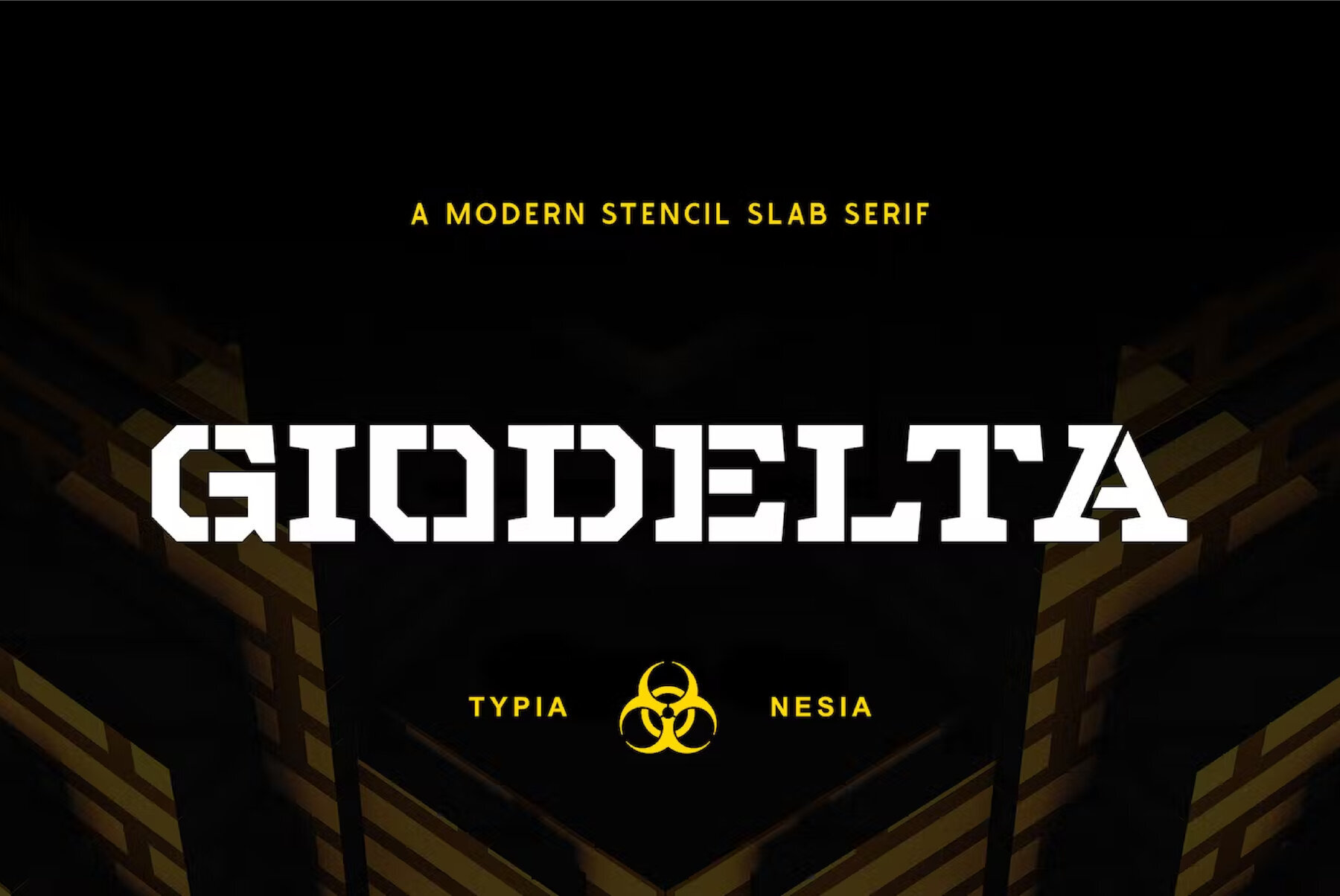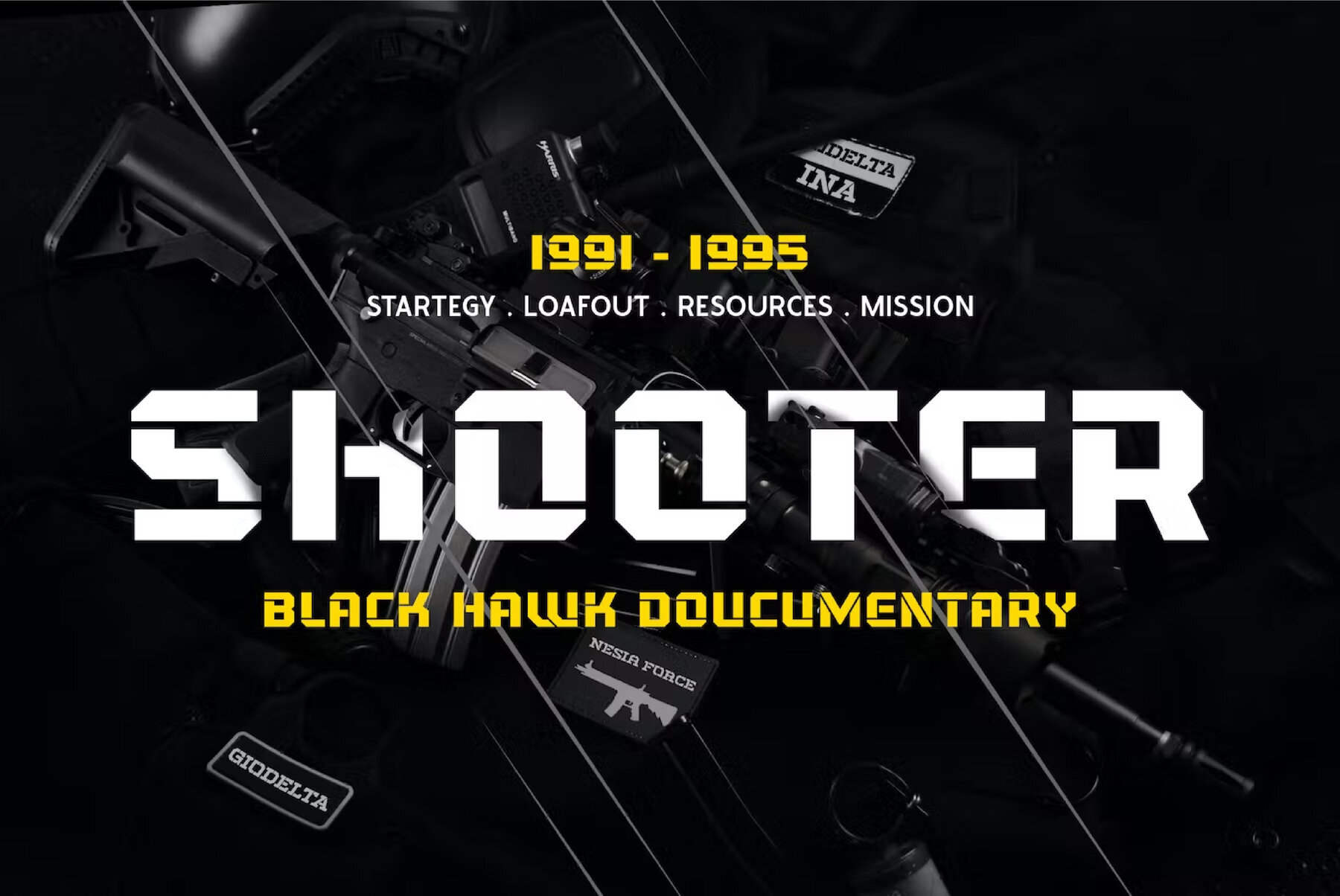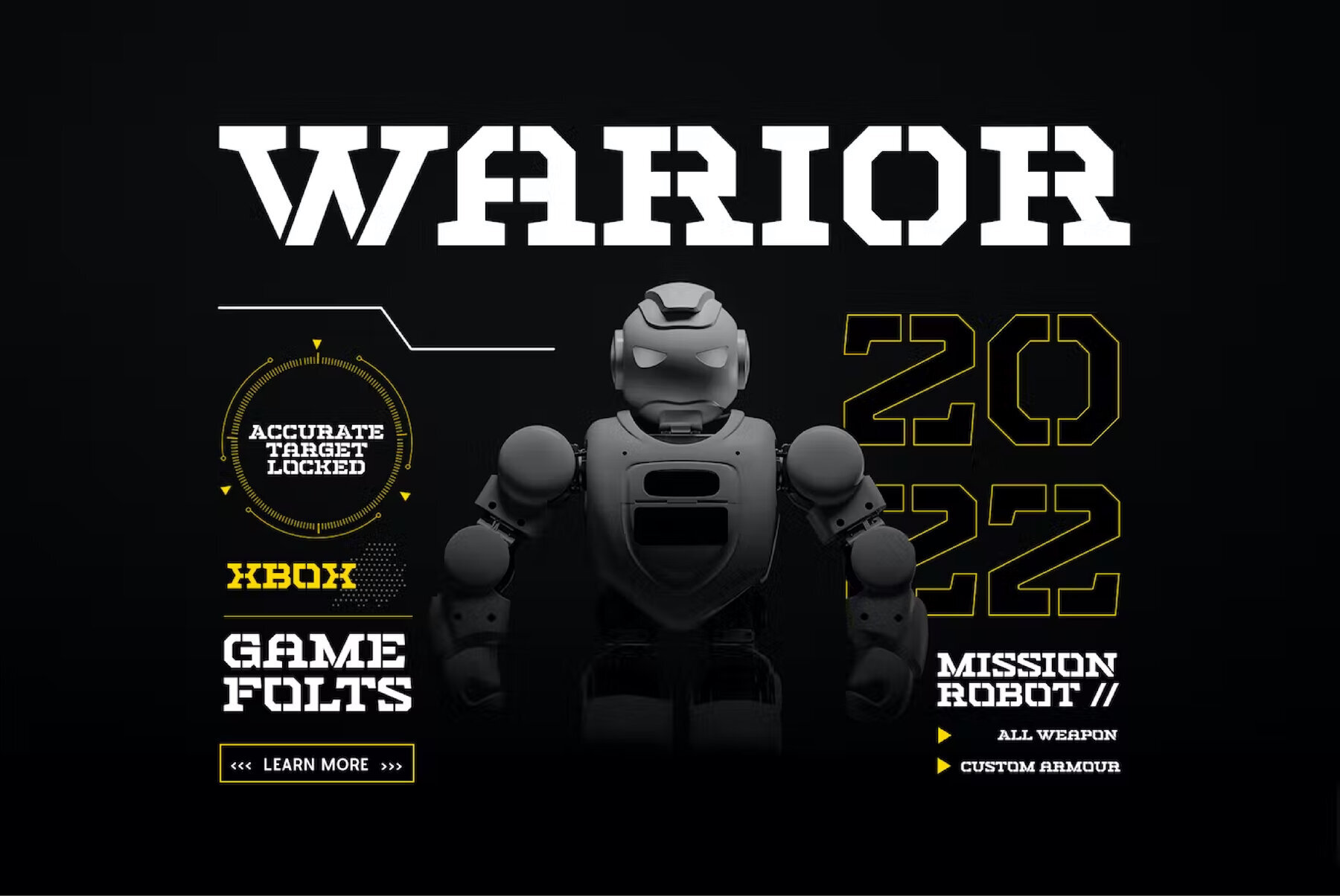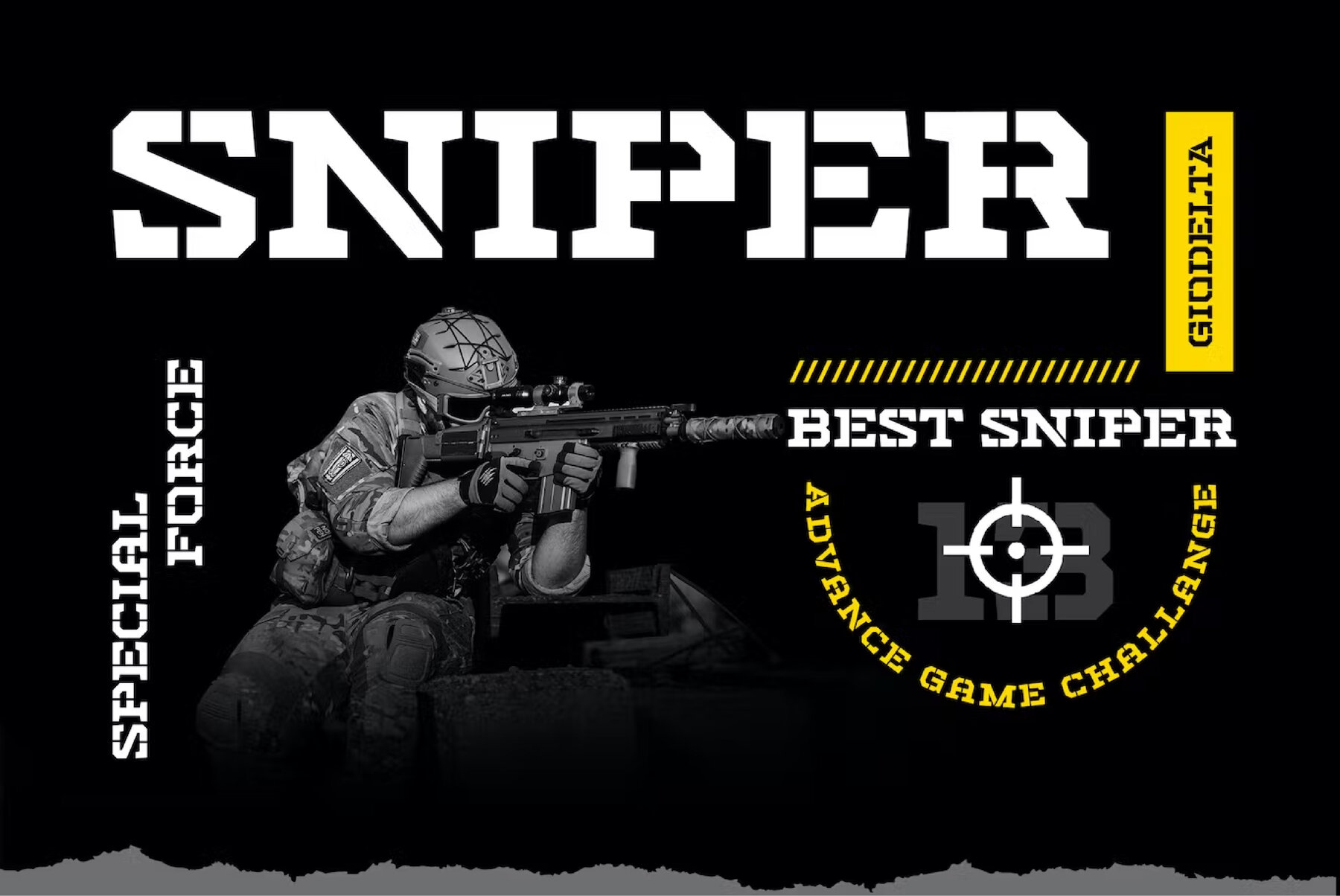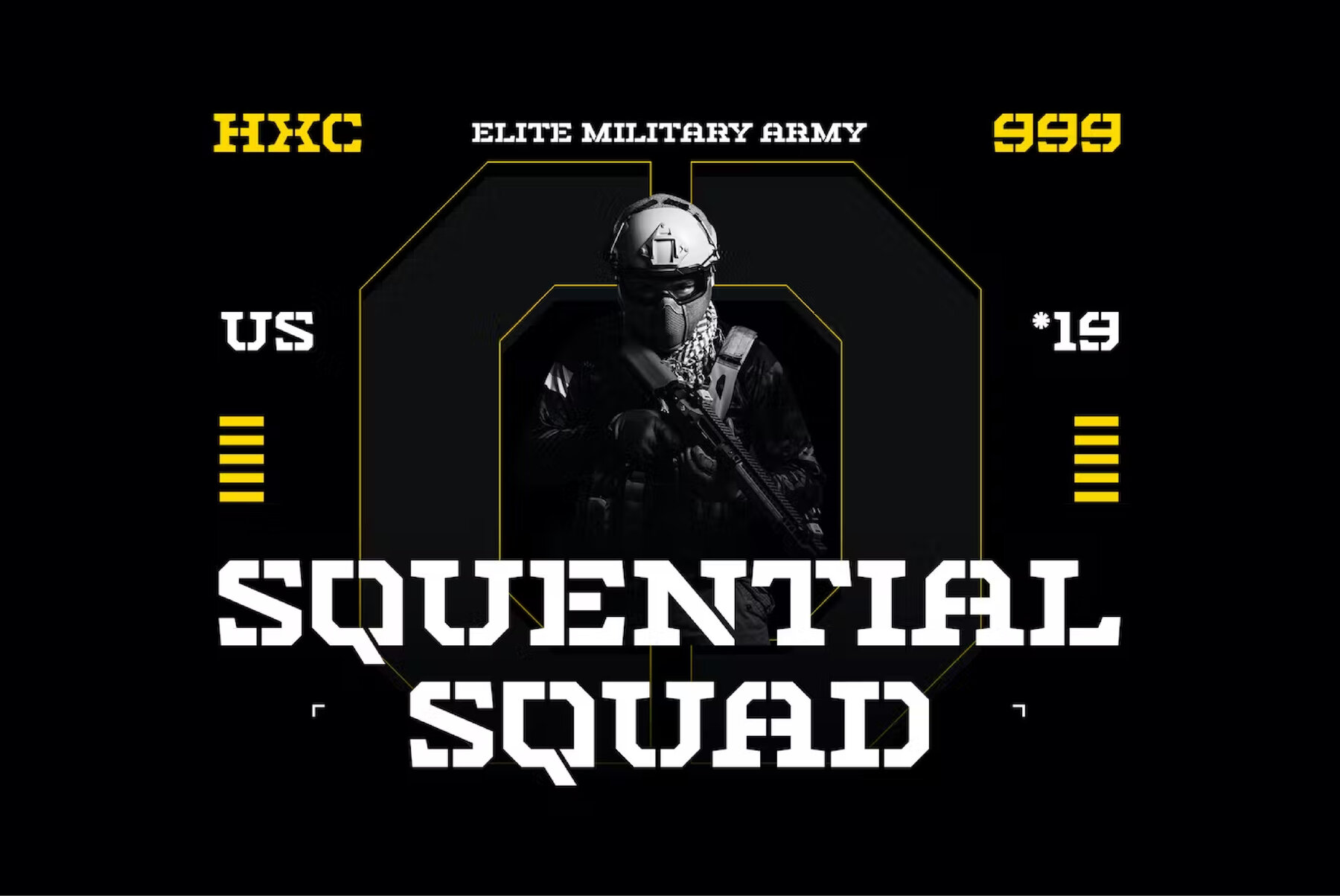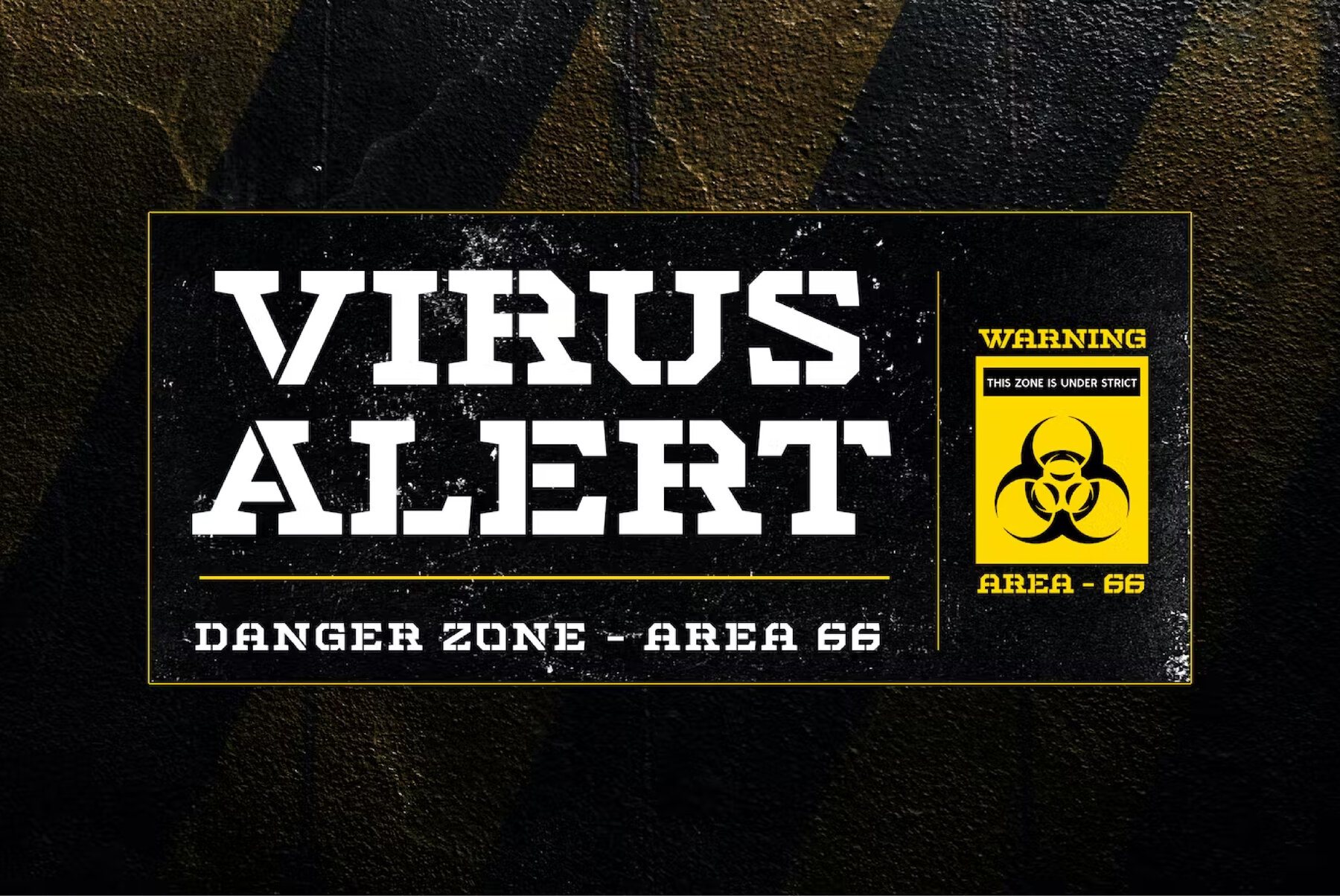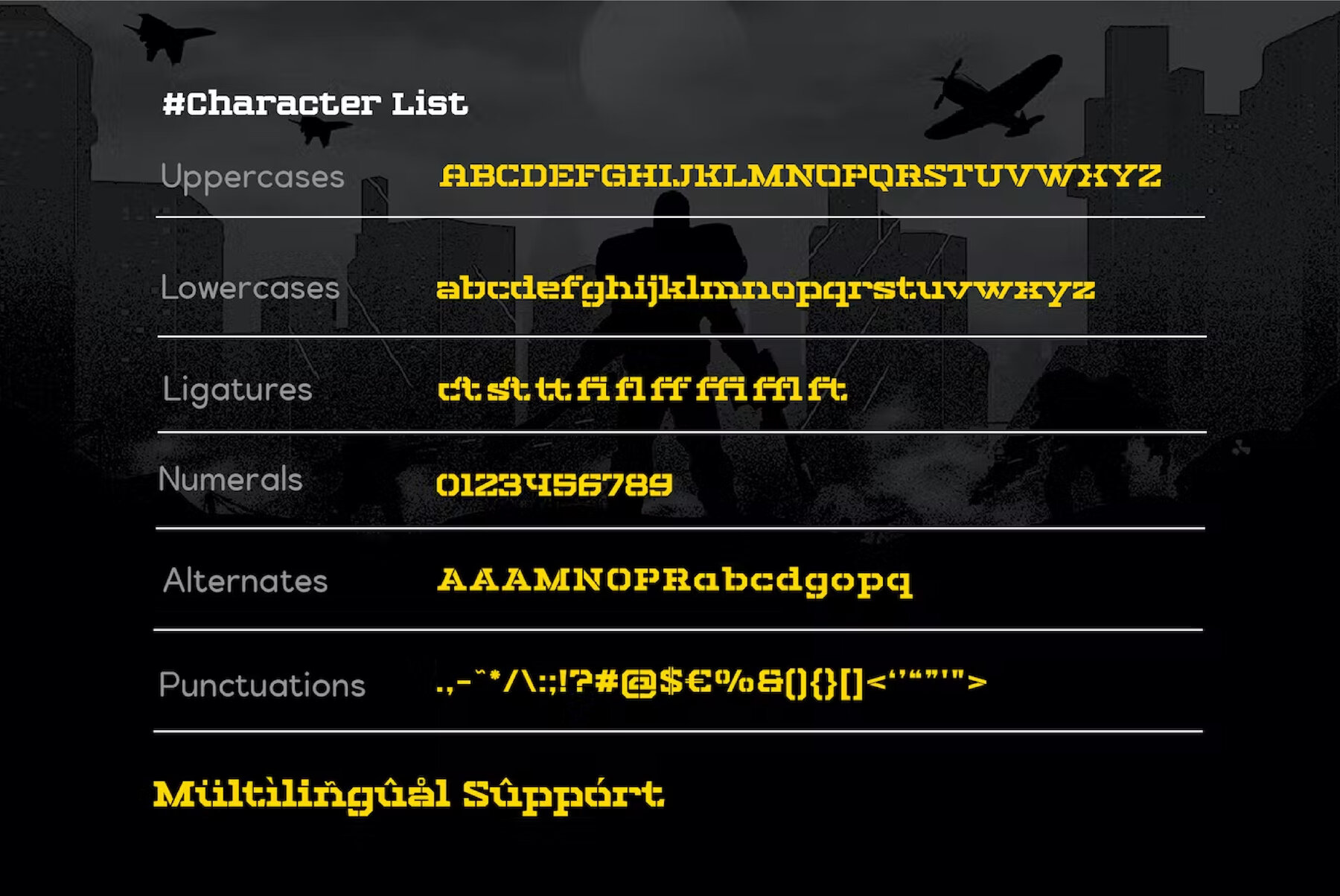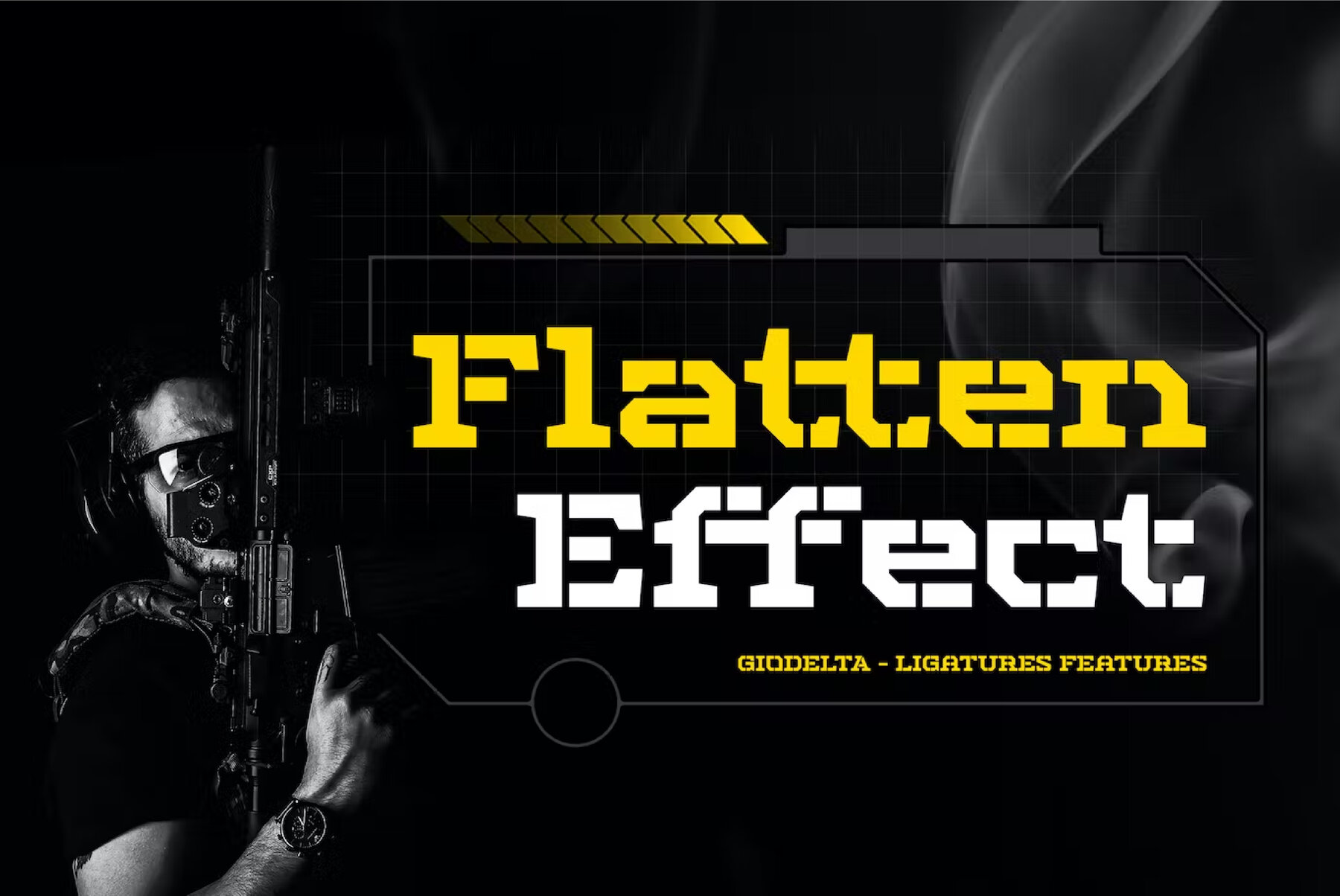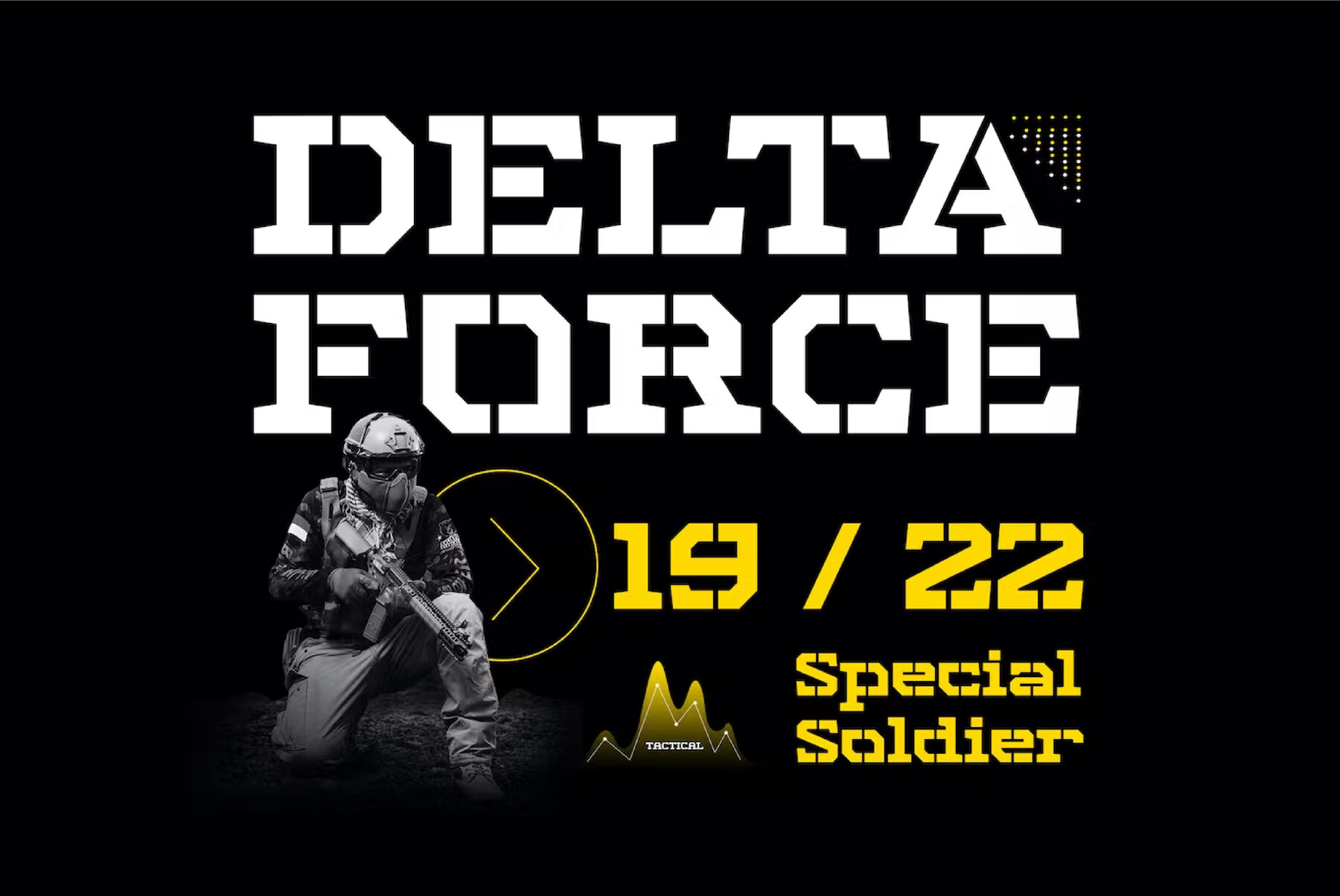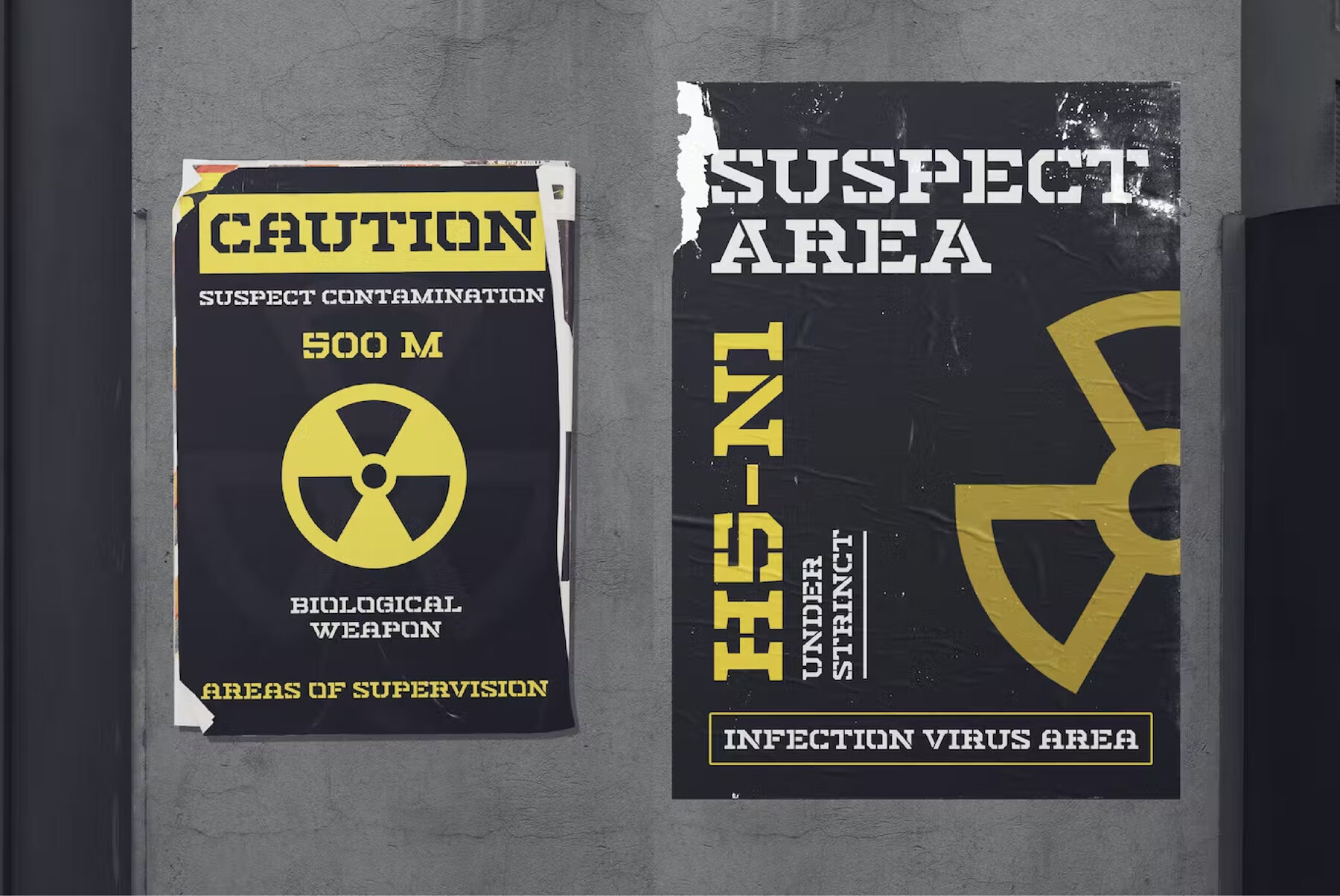
Giodelta Font
Giodelta Regular
The Giodelta slab serif font by Typia Nesia offers a distinctive aesthetic tailored for diverse design needs. With its bold weight and structured form, Giodelta is an ideal choice for projects requiring both style and clarity.Giodelta Slab Serif Font: Versatility Meets Elegance
The versatile font adapts seamlessly to editorial layouts, dynamic sports branding, and elegant stationery, making it a valuable asset for any designer.